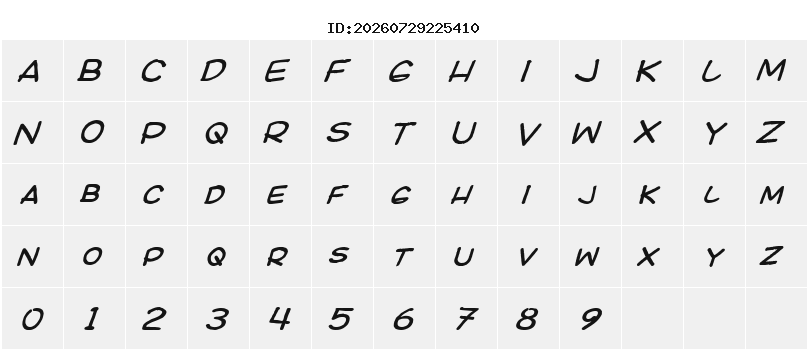
Ki Comic Preview
• Font Name: Ki Comic
• Font ID: Macromedia Fontographer 4.1.5 Ki Comic Italic
• Full Font Name: Ki Comic Italic
• Version: Macromedia Fontographer 4.1.5 9/3/0
• PostScript Name: KiComicItalic
About Ki Comic.ttf
Ki Comic.ttf is a modern, elegant sans-serif font designed for ultimate readability and visual harmony. Perfect for branding, headlines, web design, and print materials.